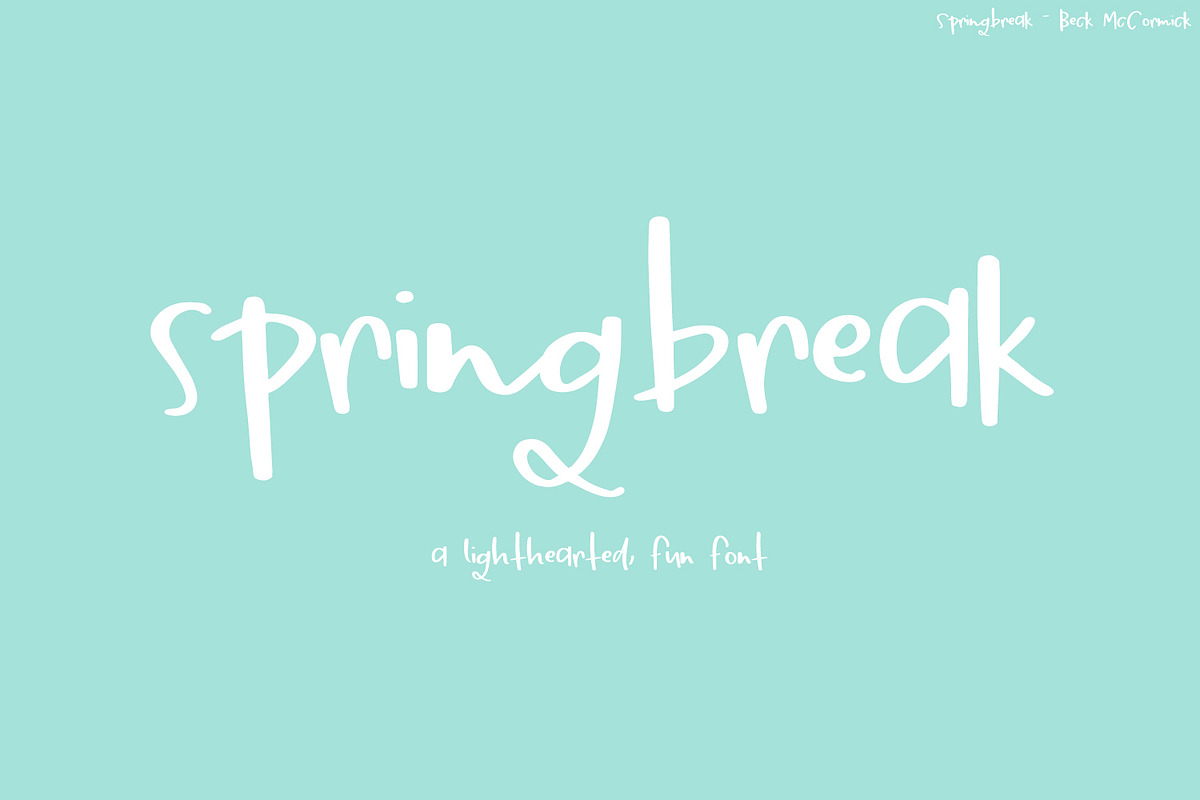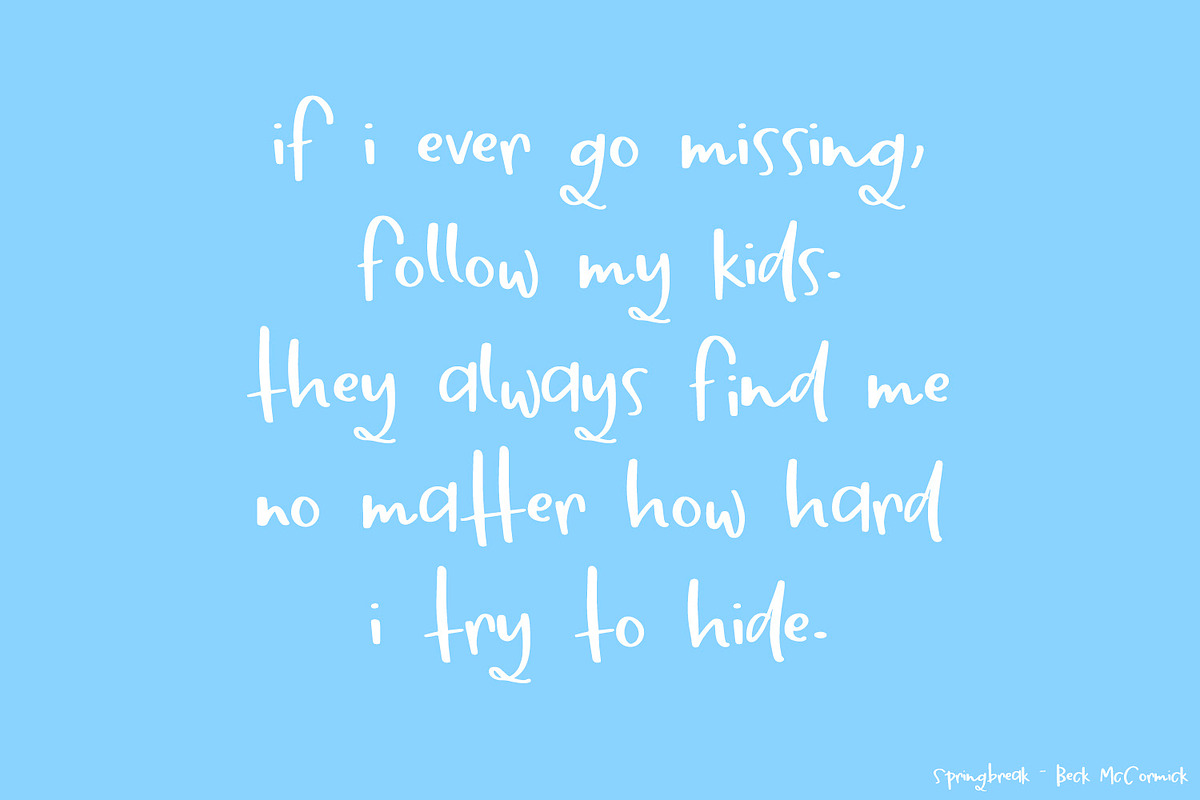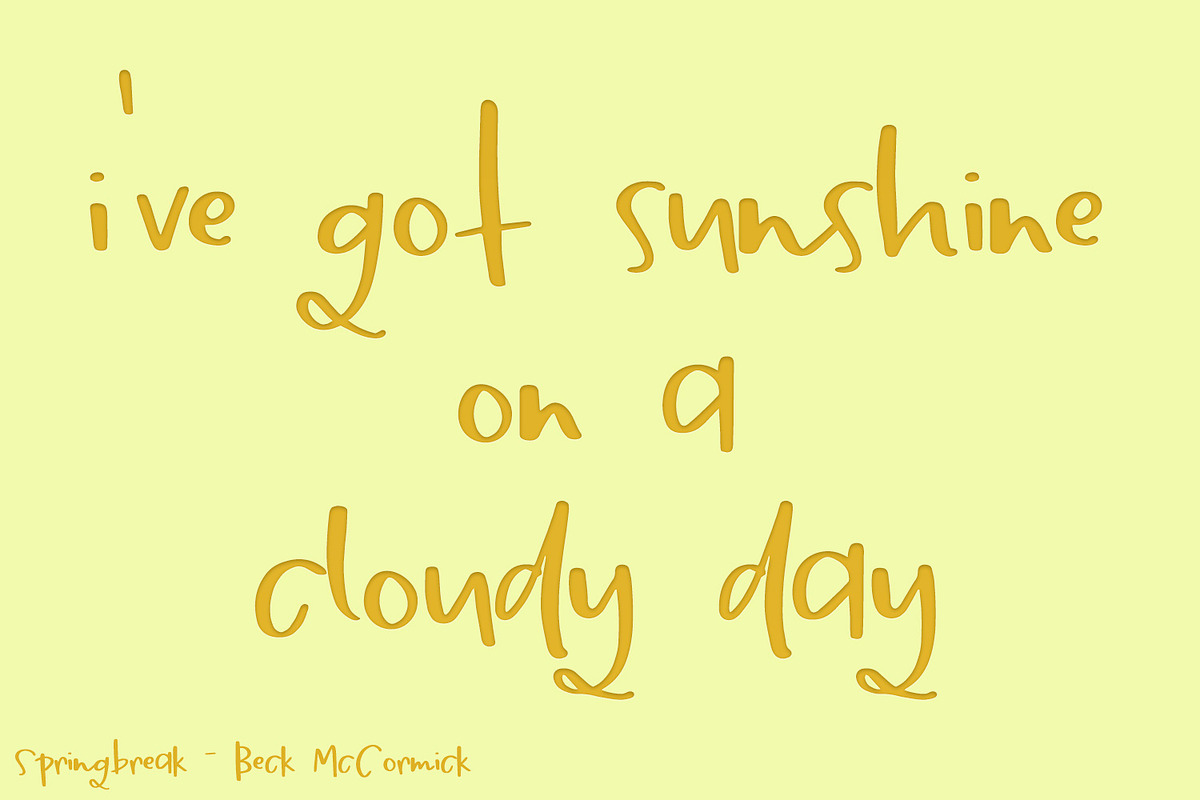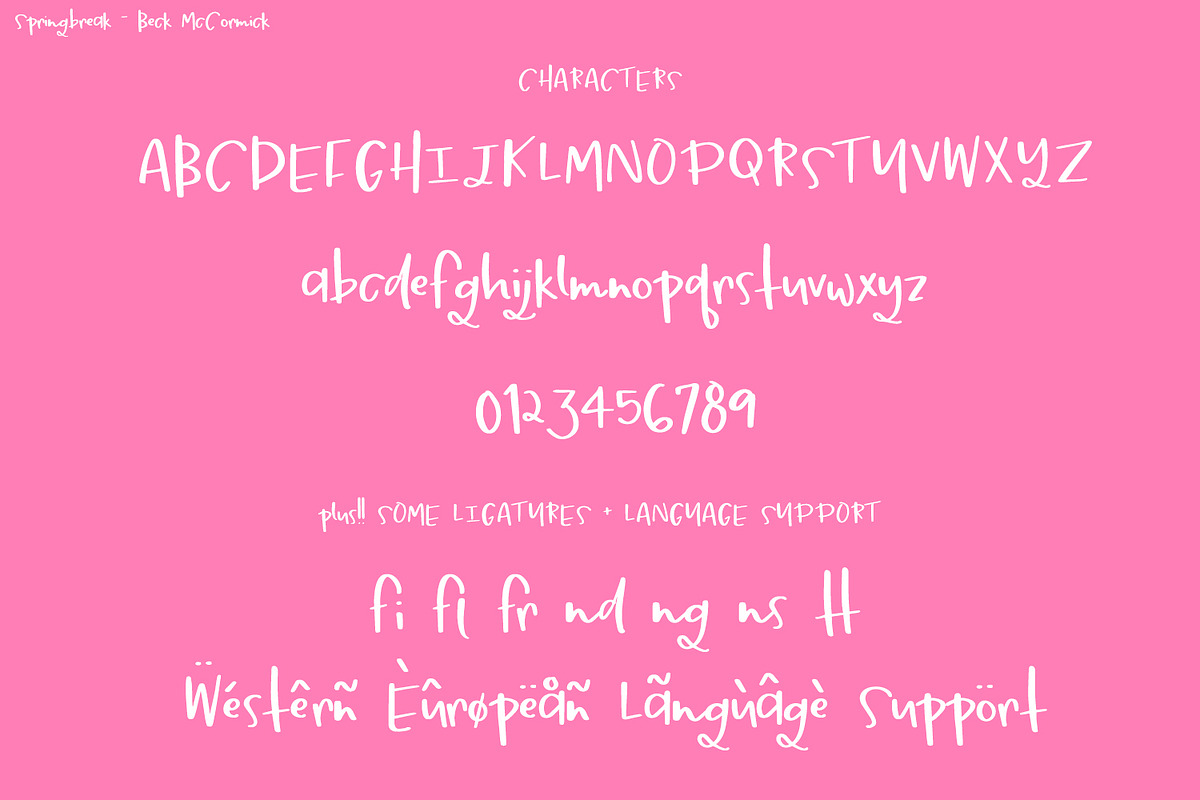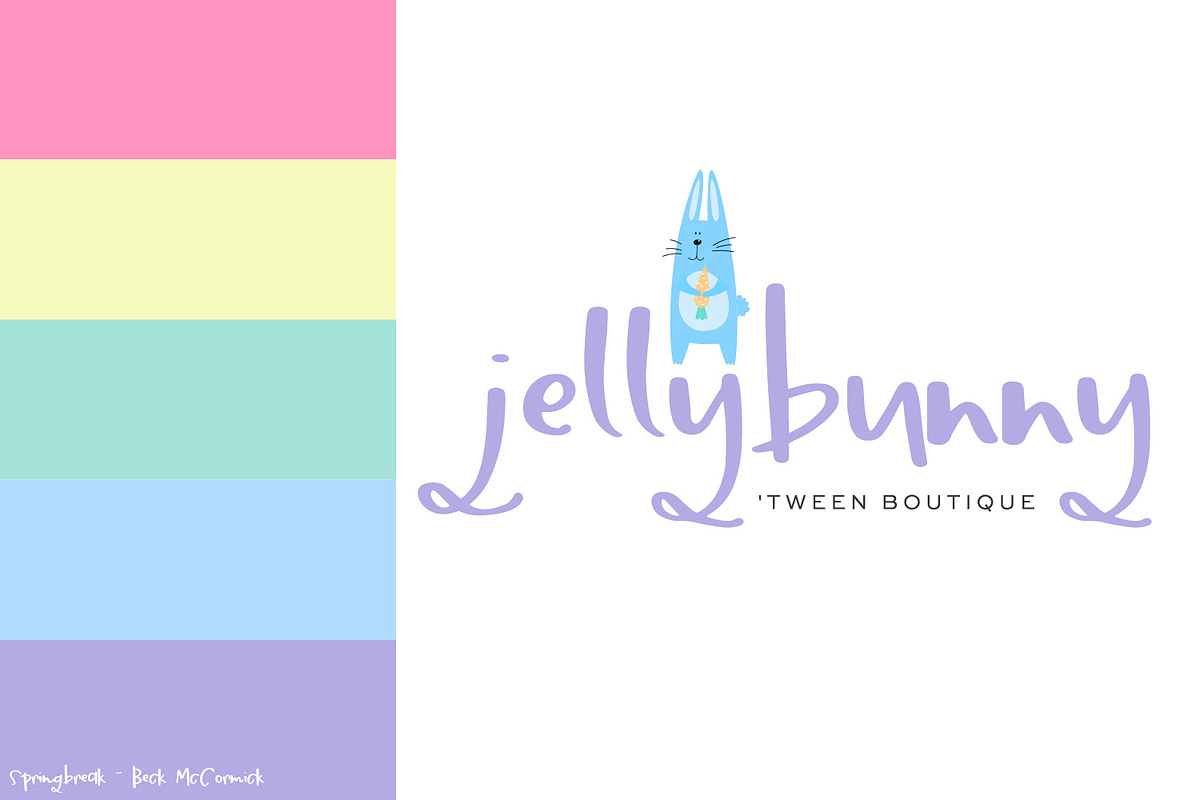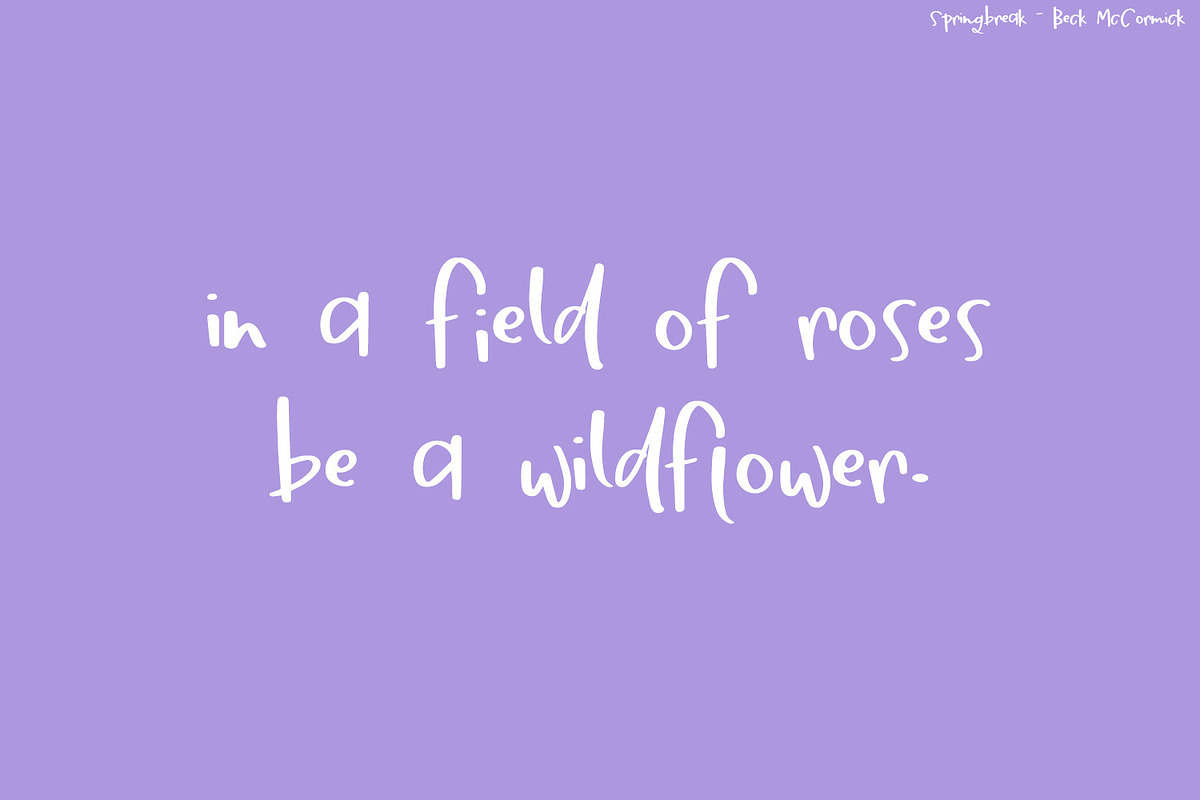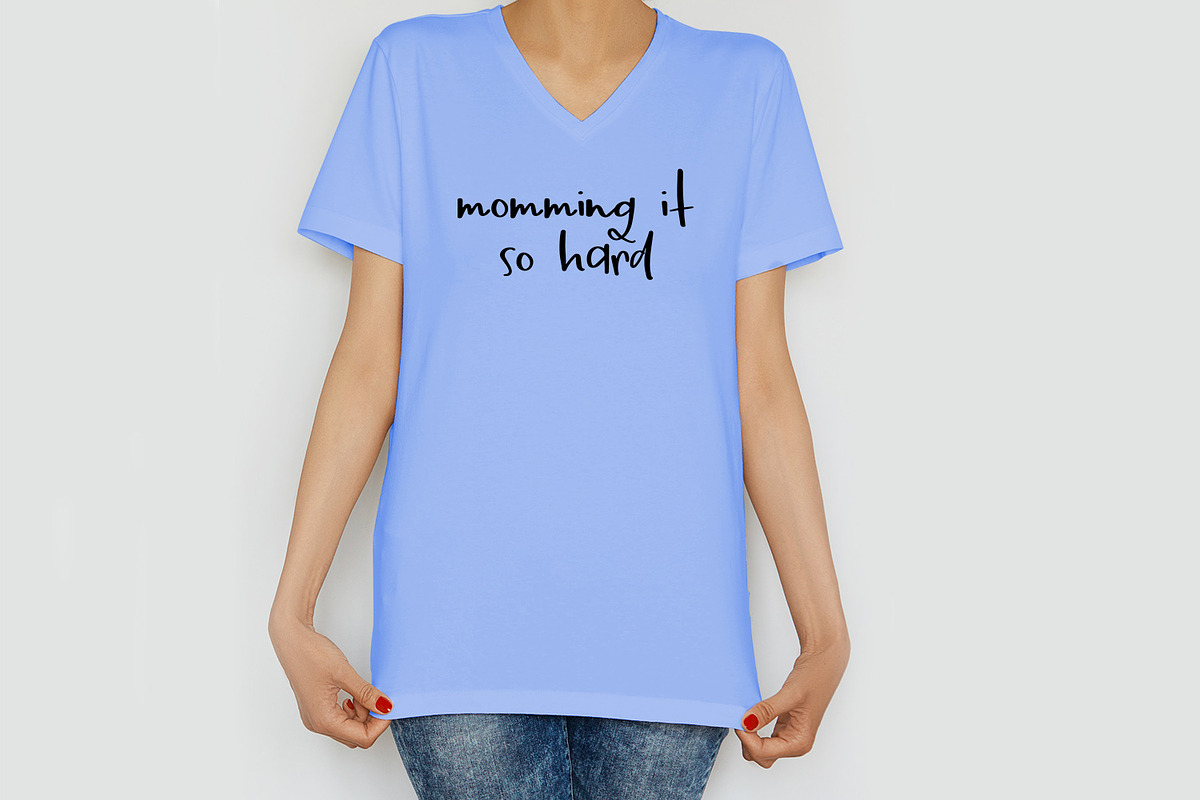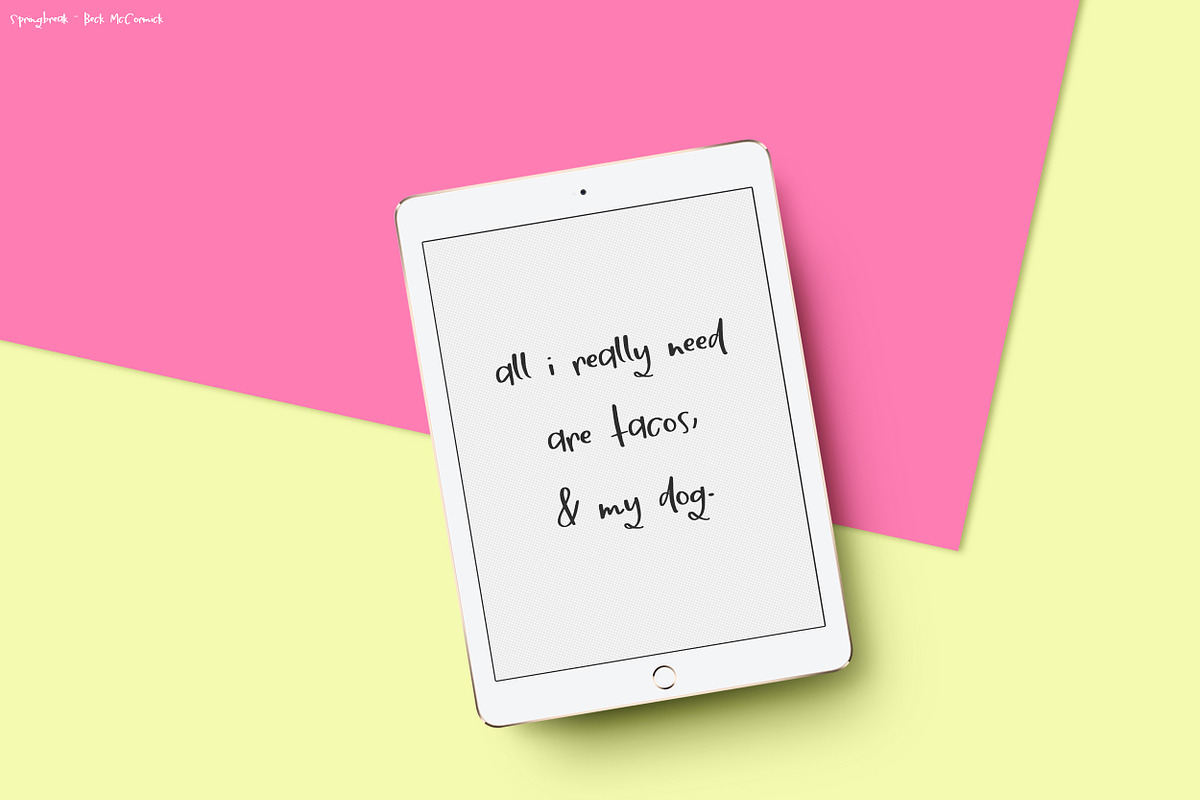
Springbreak Sans
Introducing Springbreak, a fresh and bouncy handlettered print font. Springbreak is super easy to read, with just enough playfulness and flow.
Bonus! Springbreak features Western European language support!